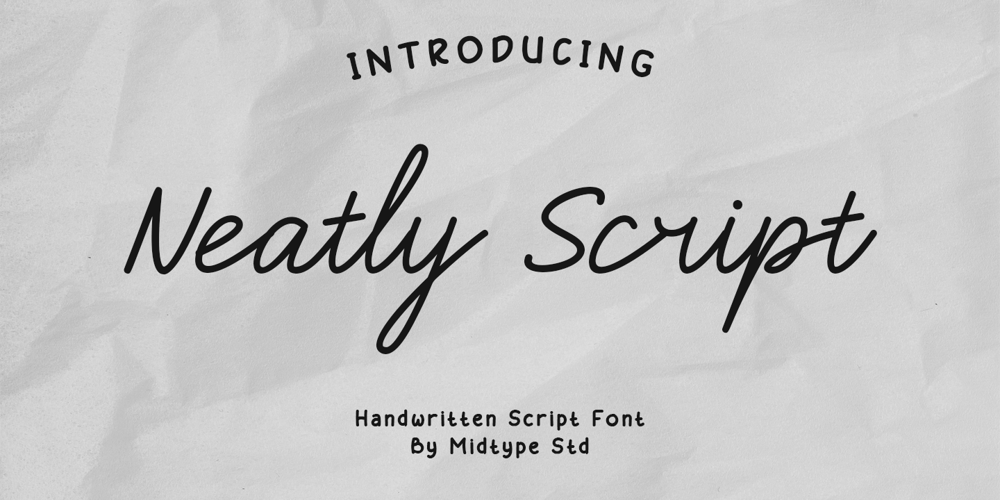
Neatly Script
Neatly Script font
Neatly Script Font Family was designed by Dwi Nur Hamida and published by Midtype. Neatly Script contains 1 styles and family package options. Neatly Script is a beautiful handwritten brush script font that features elegant tails at the beginning and end of each letter. This font is Perfect for posters, Logotype, album cover, signature, invitation and more. Elevate your designs with Antaresia font and make a powerful statement with typography that speaks the language of the elegant signature style.